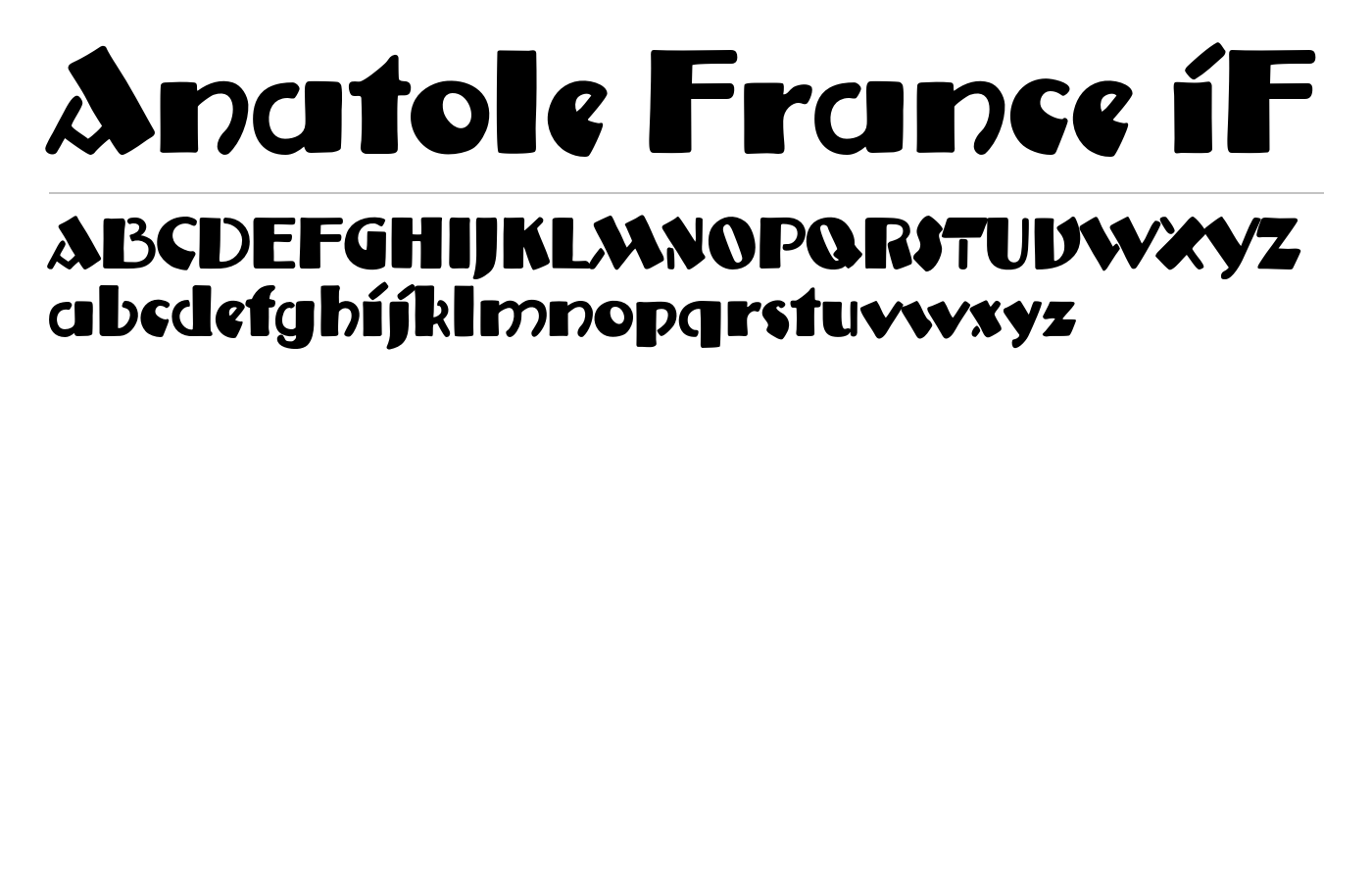
Anatole France iF is a bold, playful serif font with a strong, quirky character and moderate contrast between thick and thin strokes. Its chunky, slightly irregular shapes and unique letterforms give it a whimsical and artistic feel, making it ideal for creative titles, posters, and branding that require a distinct personality. This font works well where a bold, fun statement is needed, combining readability with a lively, handcrafted charm.
Anatole France iF Font
About Anatole France iF Font
| Font family | Anatole France iF Font |
| Designer | Ingo Zimmermann |